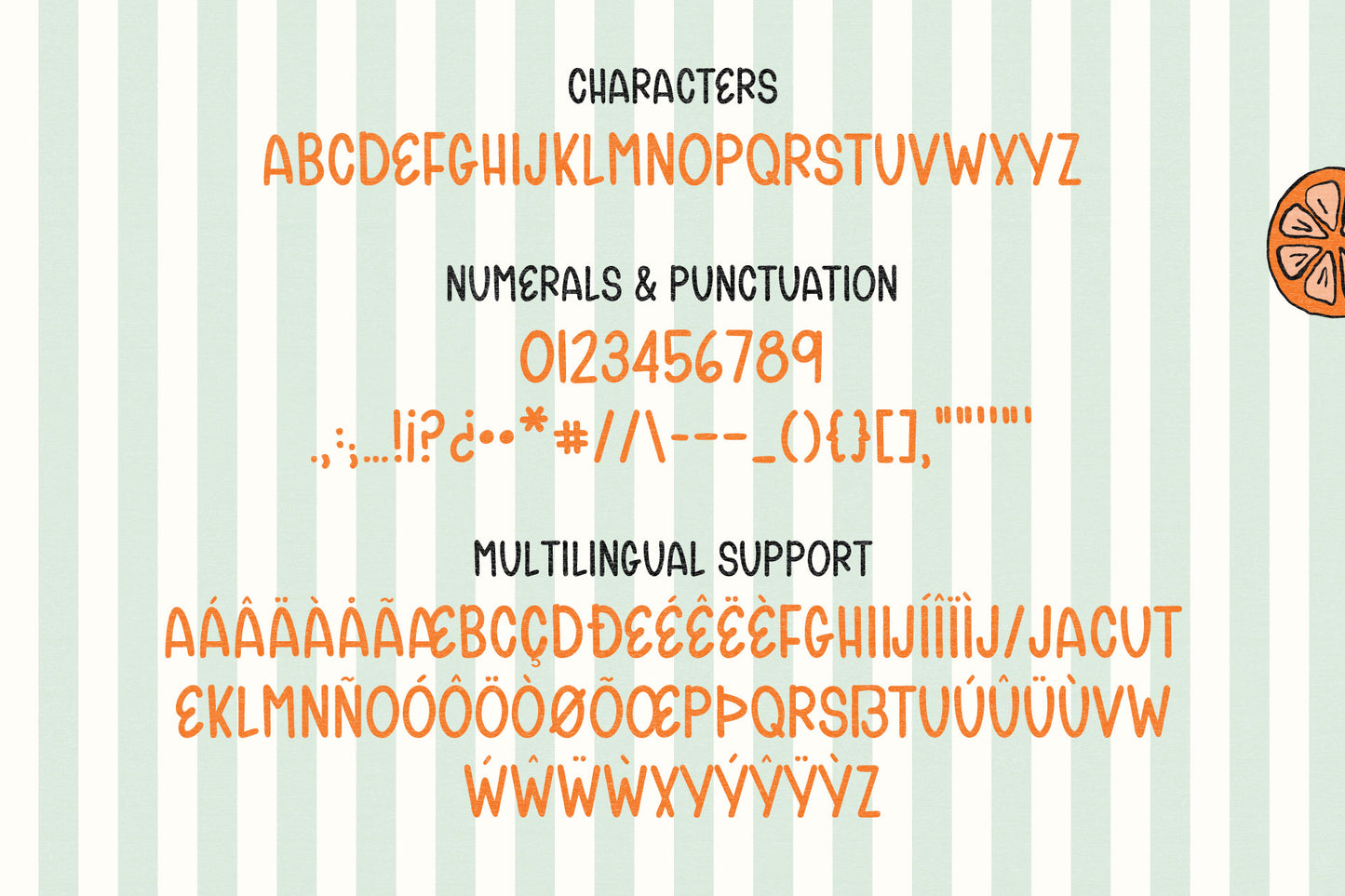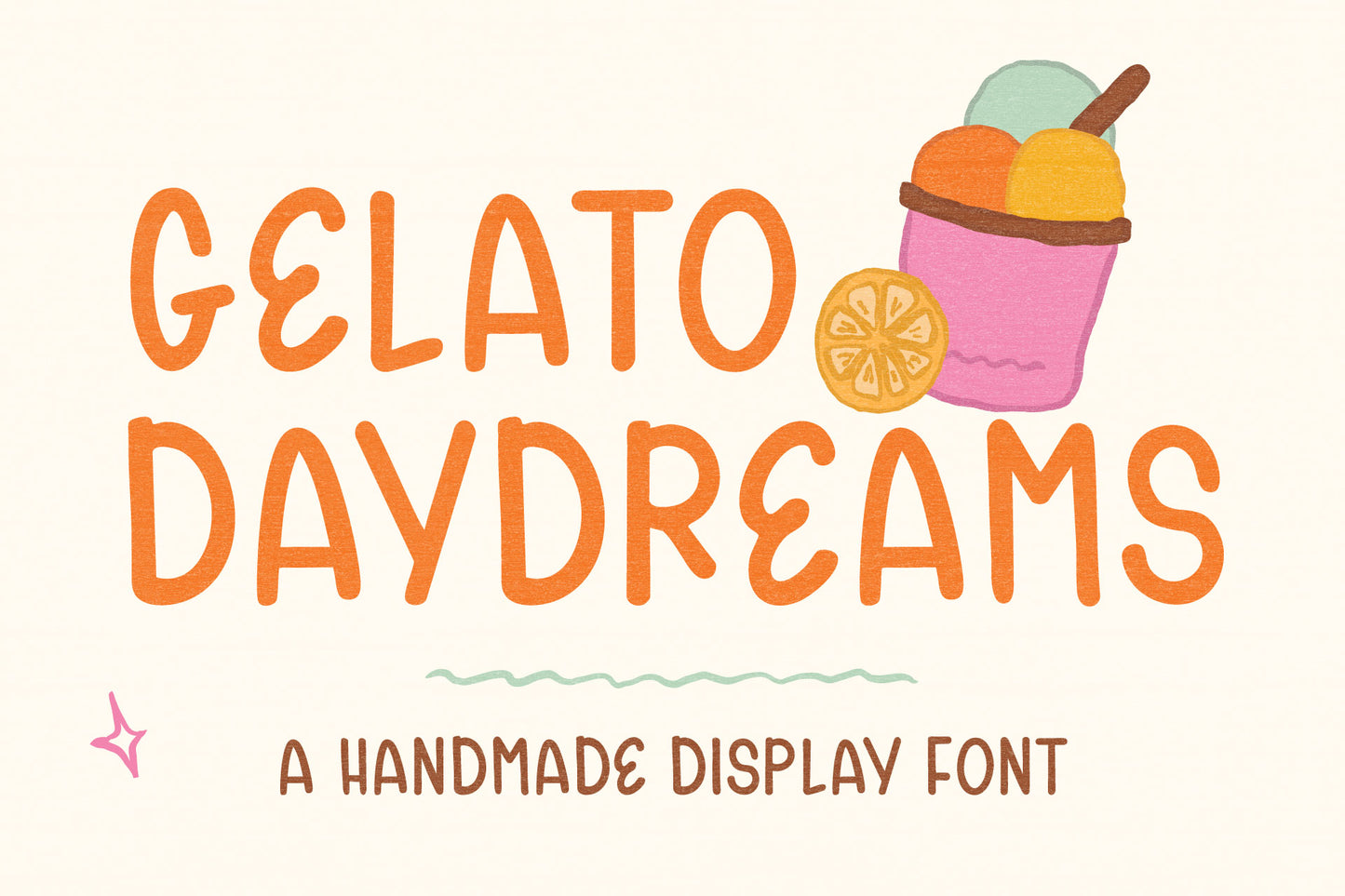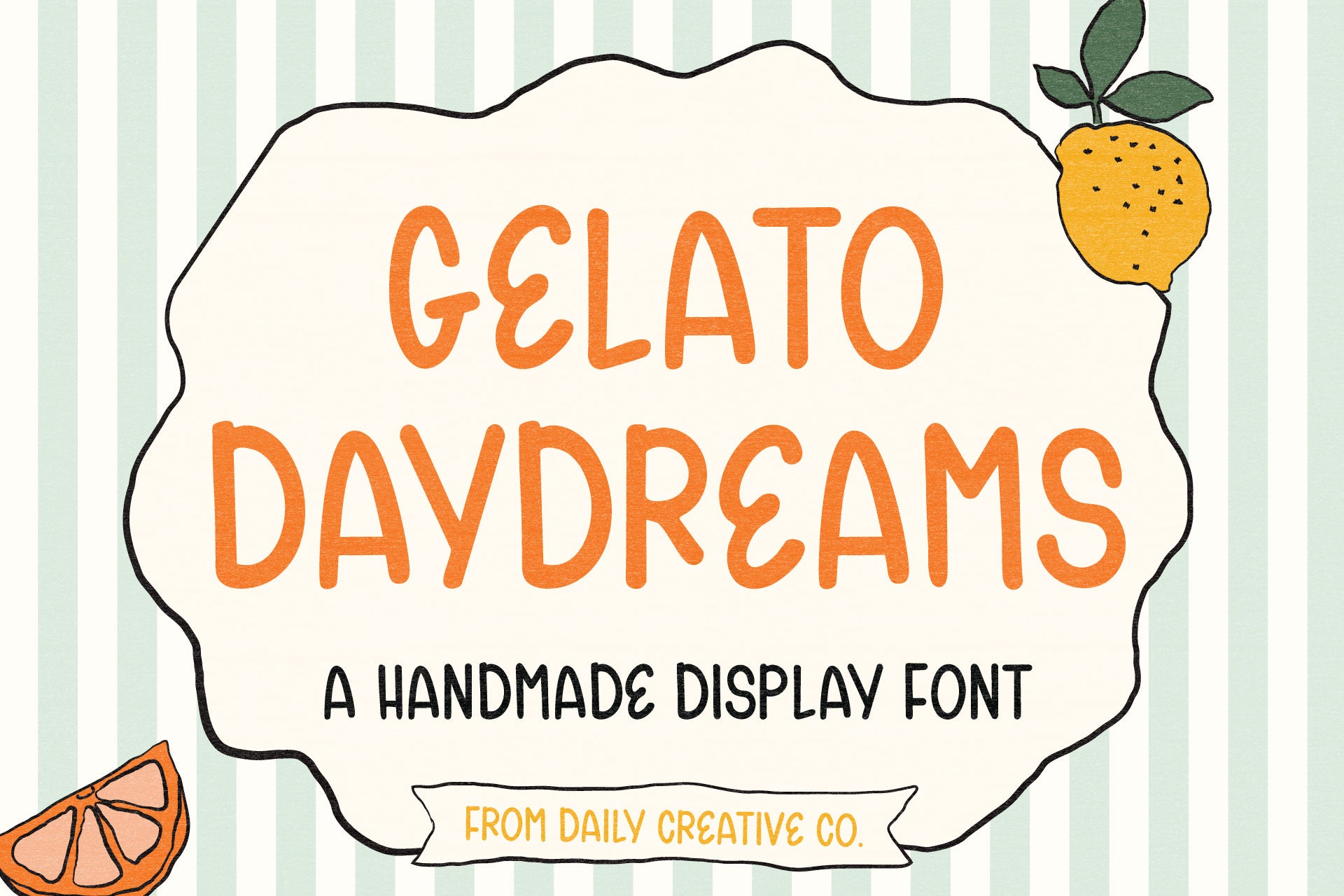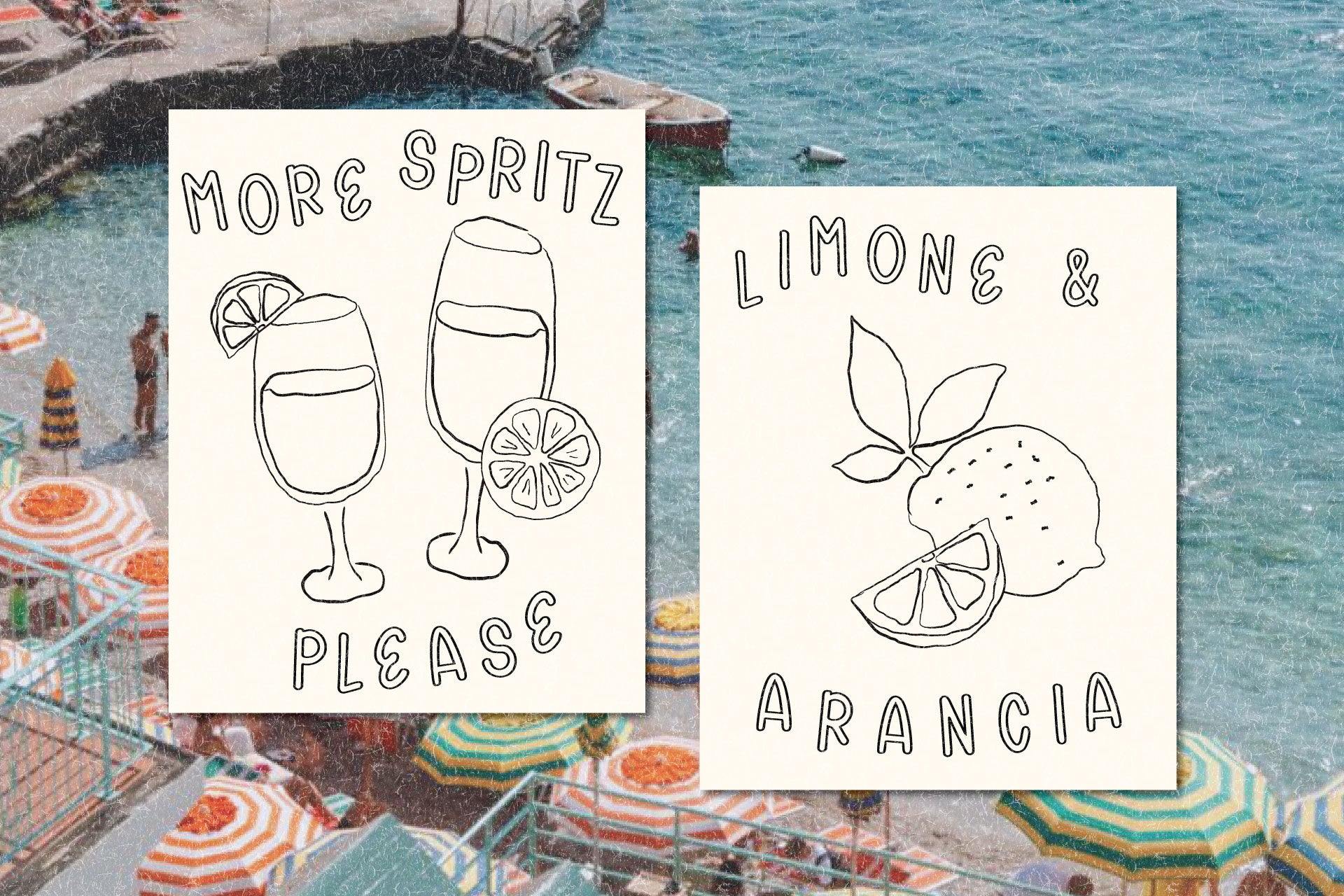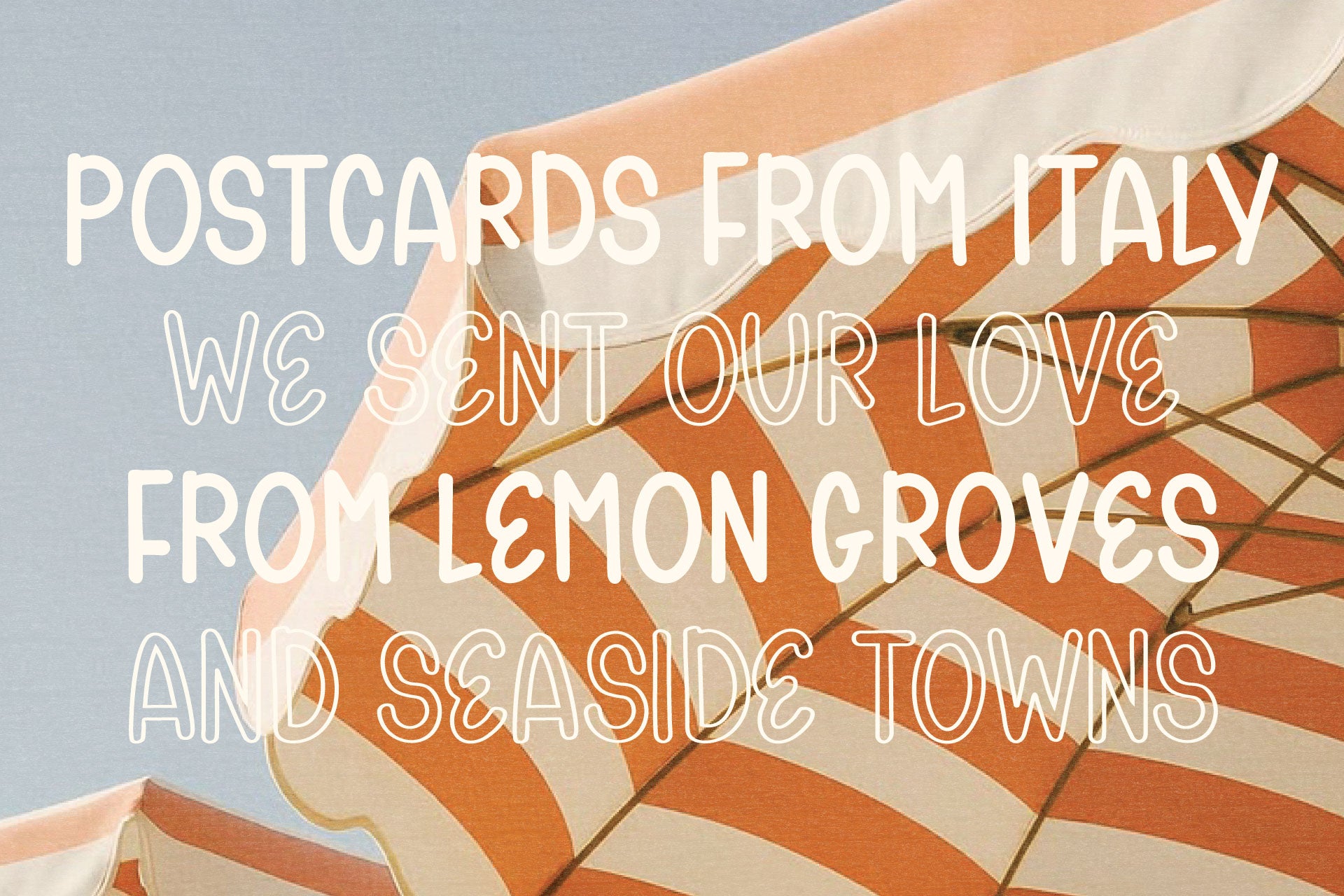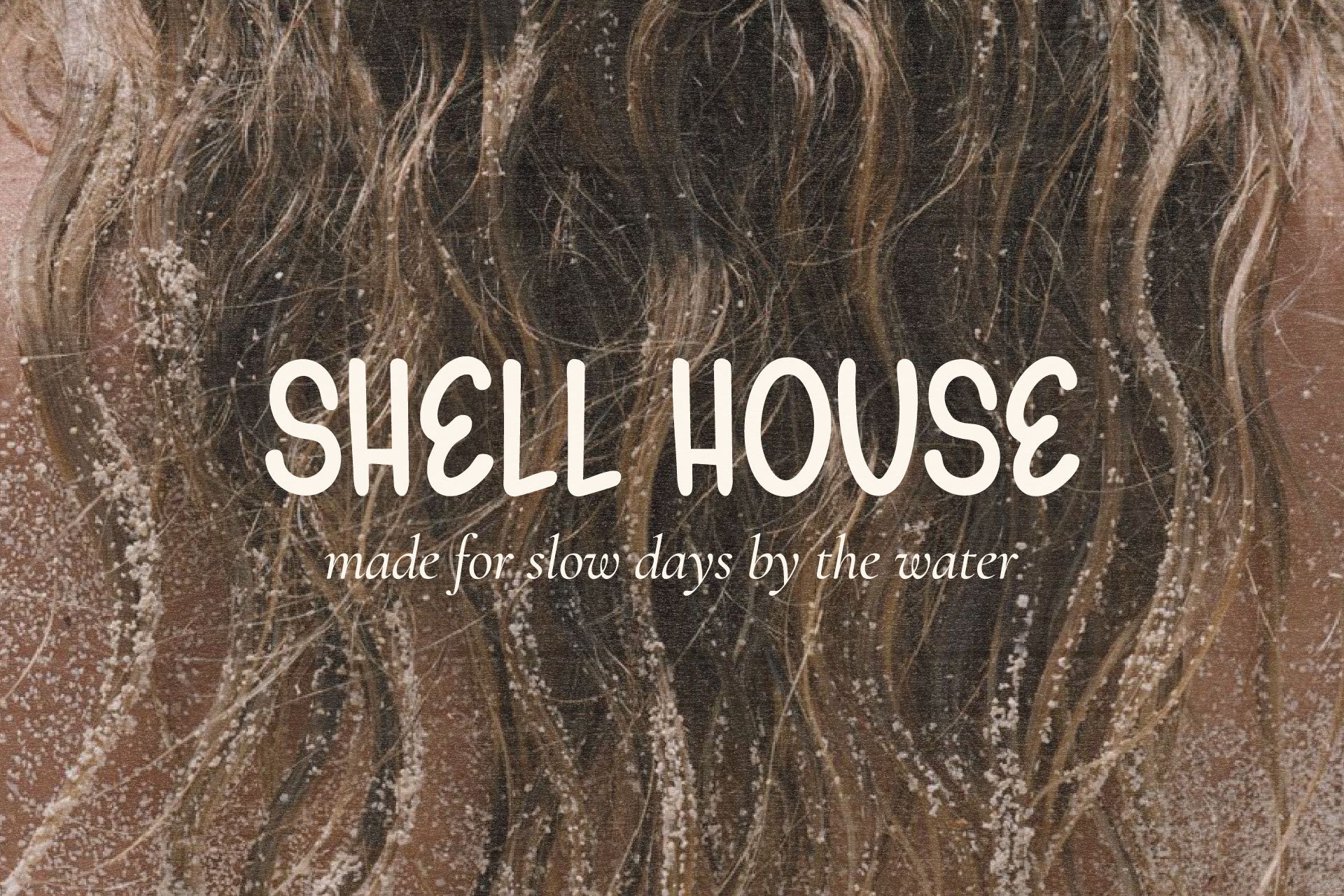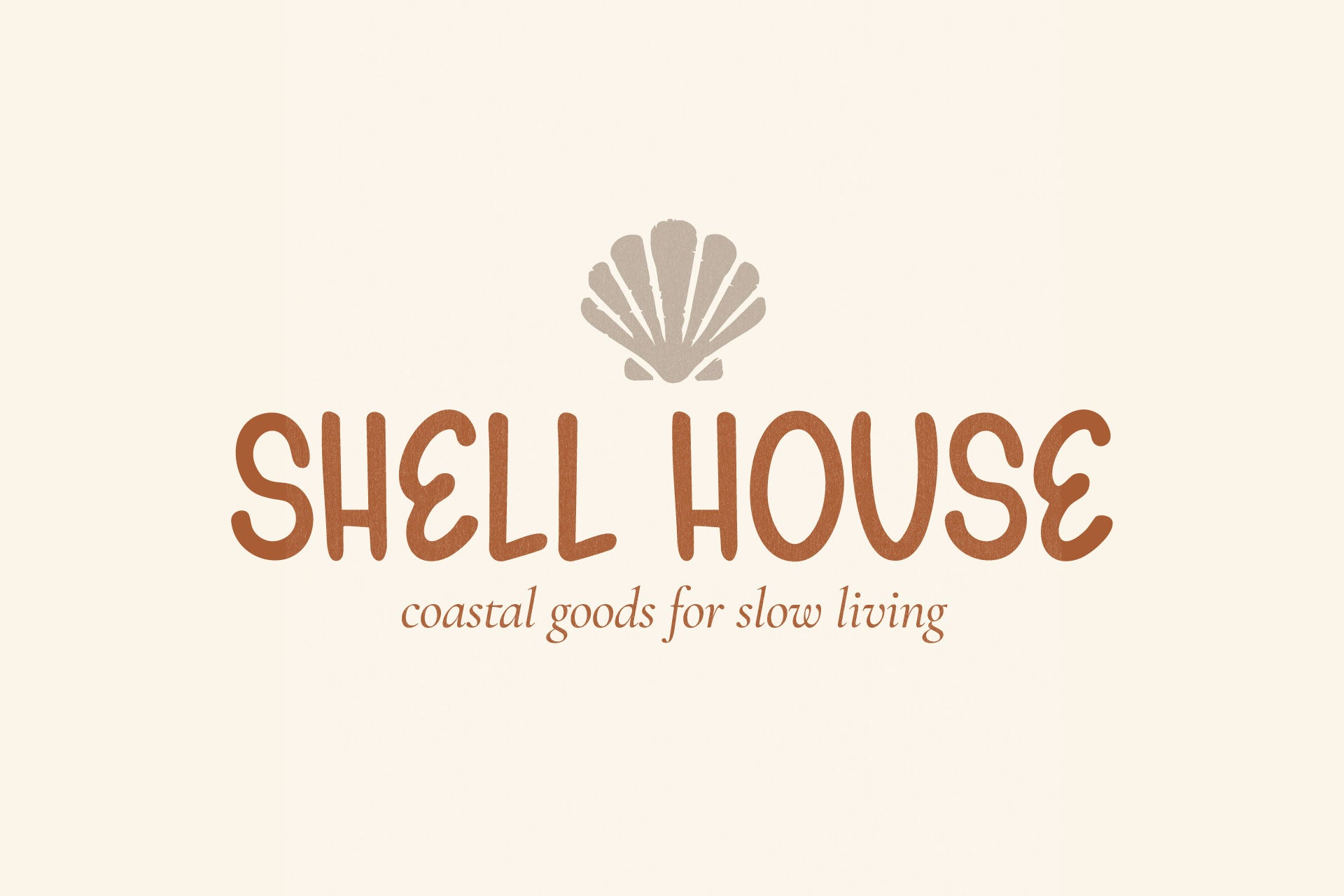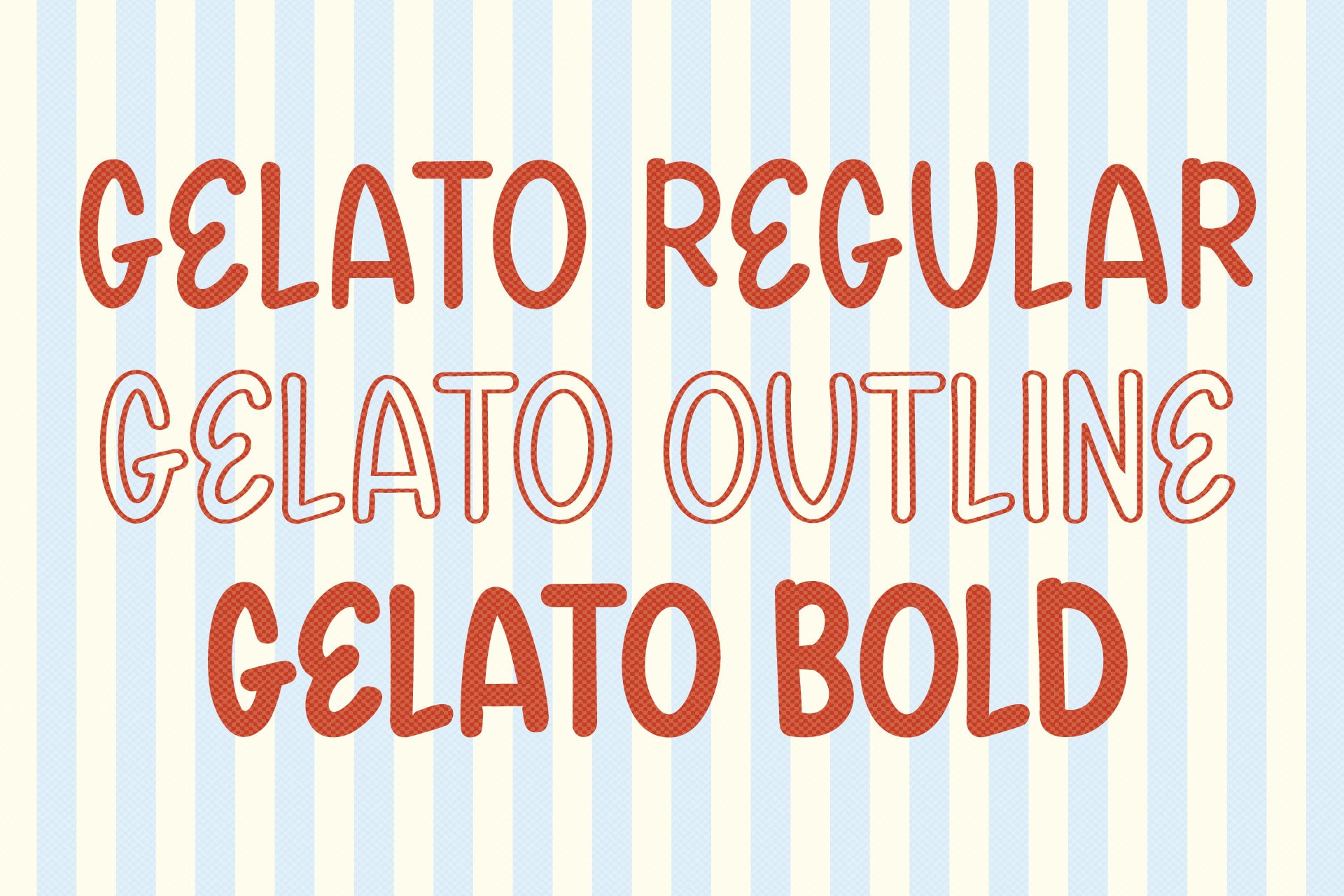
Gelato Daydreams Display Font Family
Say hello to Gelato Daydreams, a playful handmade display font family inspired by Italian summer days, vintage beach club signs, gelato shop menus, striped umbrellas, citrus groves, sunny postcards, and charming handdrawn lettering.
This handmade display font is bold, imperfect, nostalgic, and full of personality. It was designed for branding projects, logos, packaging, social media graphics, cafe menus, restaurant branding, product labels, posters, greeting cards, stationery, and creative designs that need a fun handdrawn typeface with a sunny retro feel.
Gelato Daydreams includes multiple font styles so you can create layered, expressive designs with one cohesive font family. Use the regular style for bold headlines, the outline style for playful poster layouts, the bold style for strong branding moments, and the rough style when you want a more textured handmade look.
This font is perfect for anything that needs a cheerful handmade display typeface!
Gelato Daydreams Regular
Gelato Daydreams Outline
Gelato Daydreams Bold
Uppercase letters
Numbers
Punctuation
Multilingual characters
Language Support:
Includes extended Latin character support for Albanian, Aymara, Basque, Danish, English, French, Galician, German, Haitian Creole, Irish, Italian, Luxembourgish, Norwegian Bokmål, Norwegian Nynorsk, Portuguese, Scottish Gaelic, Spanish, Swedish, and more.